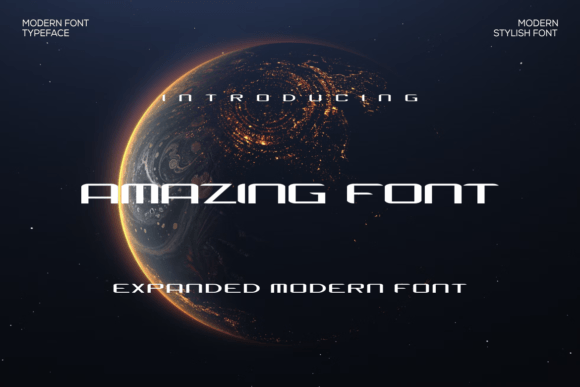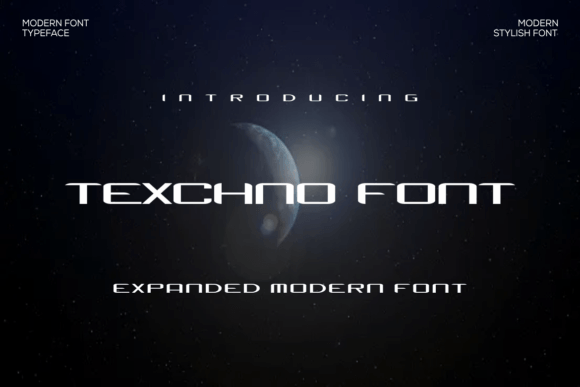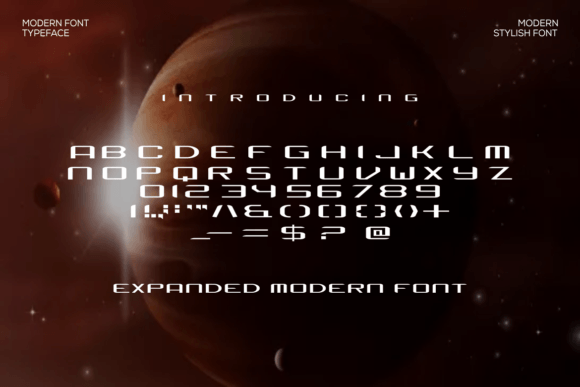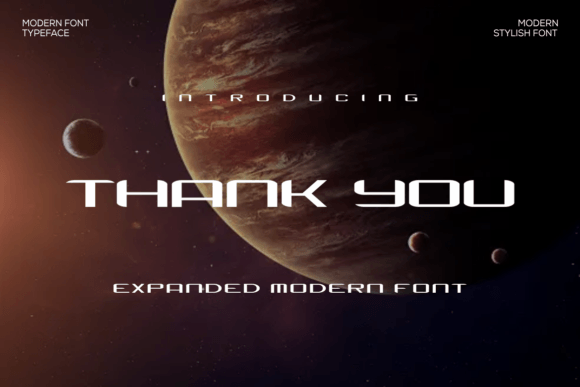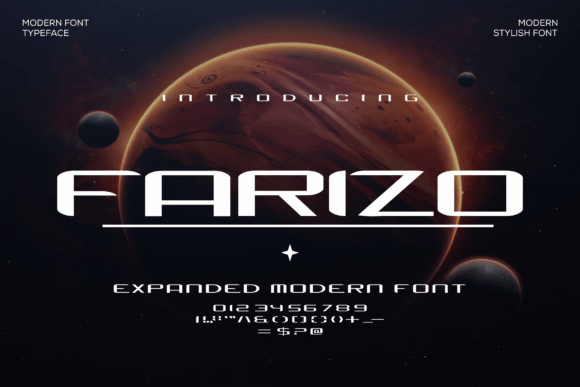
Introducing Farizo Font: The Bold and Stylish Choice for Modern Designs
In the world of typography, fonts play a crucial role in making or breaking a design. With the ever-evolving trends in graphic design, it’s essential to have a font that can keep up with the demands of modern aesthetics. This is where Farizo Font comes in – a bold and stylish font that’s perfect for giving your projects a contemporary edge.
What Makes Farizo Font Stand Out?
Farizo Font is a unique and eye-catching typeface that’s designed to make a statement. Its expanded letters give it a distinctive look that sets it apart from other fonts. The bold and stylish design of Farizo Font makes it perfect for headlines, titles, and any other design element that needs to grab attention.
Key Features of Farizo Font
- Bold and Stylish Design: Farizo Font boasts a bold and stylish design that’s perfect for modern designs.
- Expanded Letters: The font’s expanded letters give it a unique and eye-catching look.
- Contemporary Edge: Farizo Font is perfect for giving your projects a contemporary edge and making them stand out.
- Versatile: The font is versatile and can be used for a wide range of design projects, from brochures to websites.
Who Can Benefit from Using Farizo Font?
Farizo Font is a versatile font that can be used by a wide range of designers and crafters, including:
- Graphic Designers: Graphic designers can use Farizo Font to create stunning visual content, including brochures, posters, and business cards.
- Web Designers: Web designers can use Farizo Font to create modern and responsive websites that grab attention.
- Crafters: Crafters can use Farizo Font to create beautiful and unique crafts, including handmade cards, scrapbook pages, and DIY projects.
- Marketing Professionals: Marketing professionals can use Farizo Font to create eye-catching marketing materials, including flyers, banners, and social media graphics.
Tips for Using Farizo Font Effectively
To get the most out of Farizo Font, here are some tips for using it effectively:
- Use it for Headlines: Farizo Font is perfect for headlines and titles, so use it to grab attention and make a statement.
- Pair it with Other Fonts: Pair Farizo Font with other fonts to create a unique and visually appealing design.
- Experiment with Colors: Experiment with different colors to find the perfect combination that works with Farizo Font.
- Keep it Simple: Don’t overcomplicate your design – keep it simple and let Farizo Font do the talking.
- What is Farizo Font?: Farizo Font is a bold and stylish font designed for modern designs.